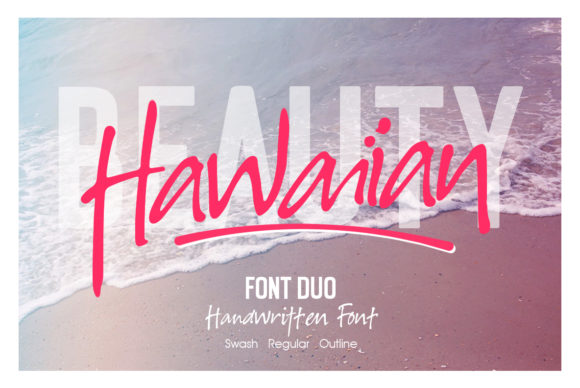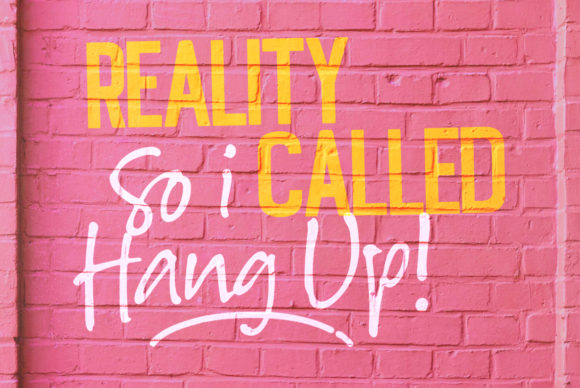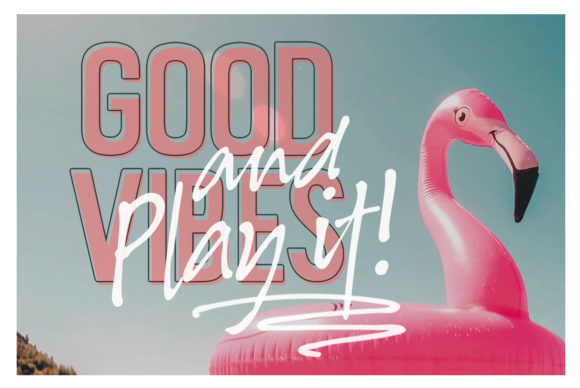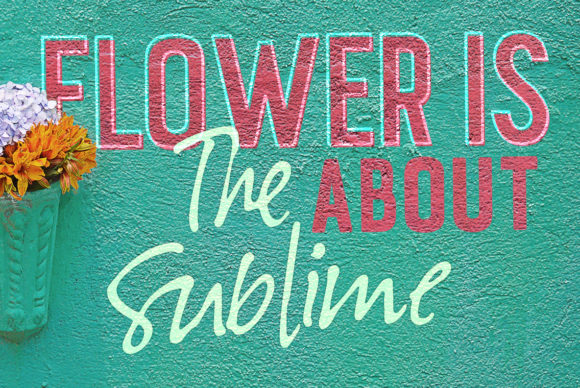
Hawaiian Duo Font
About the Hawaiian Duo Font
Meet Hawaiian Duo Font, a stunning font that brings a touch of elegance and professionalism to any design. The Hawaiian is an amazing font duo. It includes a striking version, and a messy, yet charming and natural version. Both style can be combined perfectly to create an unique design in an instant.
The “Striking” version excels in headlines, short impactful text for branding, and poster designs where bold statements are needed. It’s less suitable for body copy or UI elements requiring high readability. The “Messy” version works well for packaging designs, adding a handcrafted, informal touch, or as an accent font in playful marketing materials. Avoid using it for large blocks of text.
Its core personality is bold and friendly, yet slightly informal. The font duo is ideal for brands projecting a relaxed, approachable yet confident image—think surf shops, artisan food brands, or summer festivals.
Pairing suggestions: The “Striking” style complements clean sans-serif fonts like Open Sans or Lato for body text. For the “Messy” style, consider pairing with a classic serif like Garamond or a more geometric sans-serif to create contrast and visual interest. Avoid pairing both styles with overly ornate or decorative fonts.
Hawaiian Duo Font Usage Examples
Hawaiian Duo Font Example